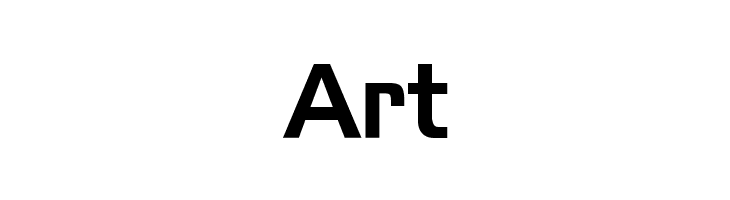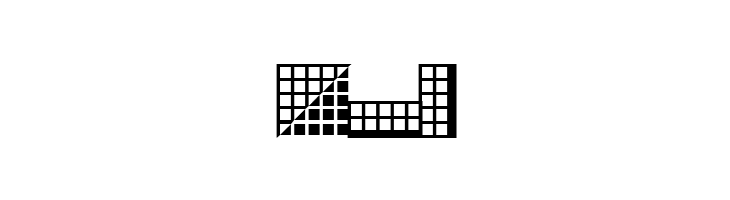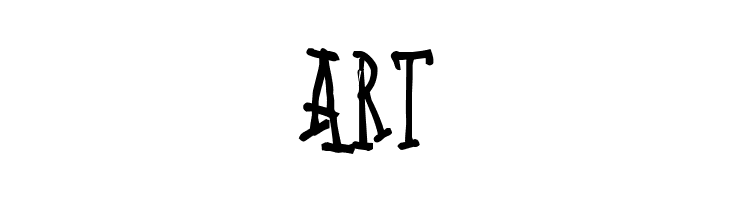
A bold, vintage-inspired font with high contrast and geometric shapes.
A bold, dynamic script font with slanted, italicized characters and strong visual impact.
A digital, geometric font with a blocky, futuristic style.
A bold, decorative font with a unique inline design, perfect for impactful headlines.
A bold, decorative font with a three-dimensional shadow effect.
A bold, textured font with a playful, cloud-like appearance.
A bold, geometric font with a modern and dynamic style.
A decorative inline font with a modern and elegant style.
A bold, slanted font with a dynamic and energetic style.
A bold, geometric font with high contrast and striking visual impact.
A geometric and angular font with a modern, artistic flair.
A bold, elongated serif font with a modern and elegant style.
A bold, rounded font with a playful and modern design.
A bold, geometric font with a playful, retro vibe.
A bold, geometric font with a vintage yet modern appeal.
An ultra-condensed, elongated font with a modern, sleek aesthetic.
A bold, retro-style font with a three-dimensional effect and thick outlines.
A bold, geometric font with sharp edges and a modern aesthetic.
A decorative inline font with Art Deco influences and high contrast strokes.
A bold, high-contrast font with geometric and modern elements.
A bold, playful font with exaggerated serifs and whimsical character shapes.
A decorative, abstract font with geometric shapes and bold contrasts.
A bold, geometric font with Art Deco influences and high contrast strokes.
A bold, geometric font with sharp angles and a strong presence.
A bold, three-dimensional font with vintage flair and strong shadow effects.
A bold, retro font with a shadow effect, perfect for vintage-themed designs.
A bold, futuristic font with sharp angles and a dynamic slant.
A bold, Art Deco-inspired font with geometric shapes and sharp angles.
A playful, rounded font with bold, smooth curves and consistent stroke width.
A bold, geometric font with Art Deco influences and dynamic character shapes.
An elegant, high-contrast decorative font with intricate details.
A bold, geometric font with a three-dimensional outline style.
An elegant and decorative font with intricate swirls and flowing letterforms.
A bold, graffiti-inspired font with dynamic, hand-drawn strokes.
A bold, geometric font with a 3D shadow effect, ideal for impactful designs.